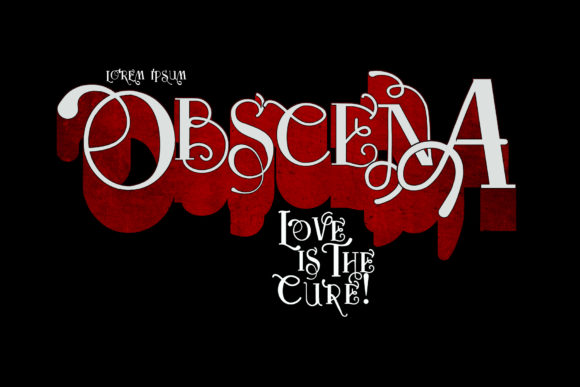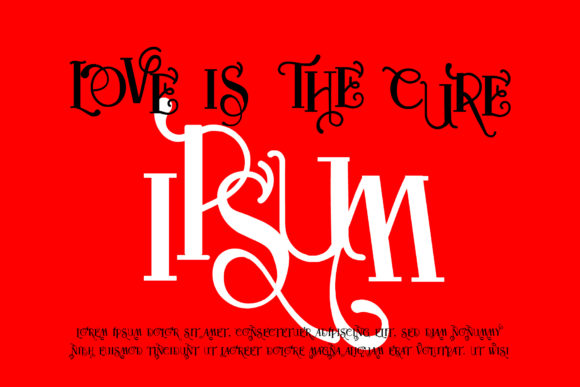
Obscena Font
About Obscena Font
Obscena is a bold and unique display font. Use this spectacular font to add a very special retro touch to any design idea you can think of!